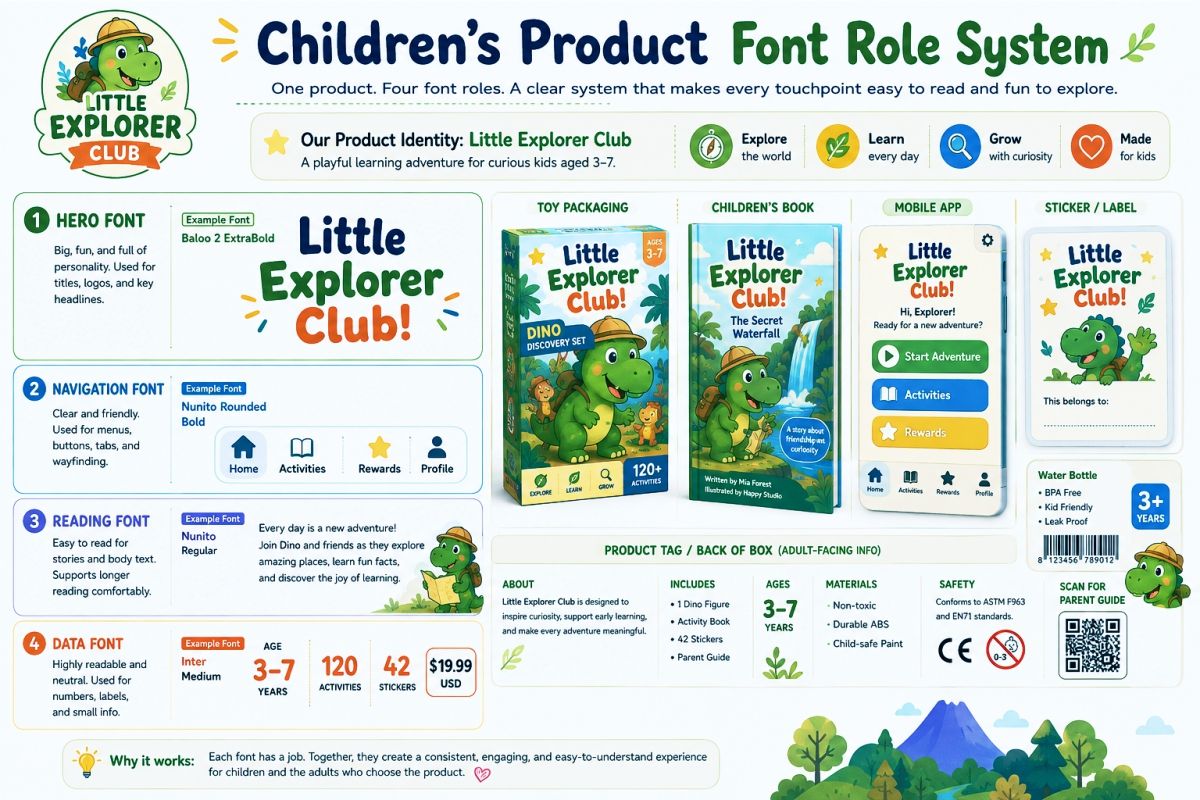
Fonts for Children’s Products: Cute, Playful, and Easy-to-Read Choices
Choosing fonts for children’s products can look like a simple creative task.
Find something rounded. Add cheerful colors. Make the letters bounce a little.
Done.
But a font can look adorable in a large presentation and become difficult to use on an actual product. The counters close. Similar letters become confusing. The product name disappears among illustrations. Instructions feel cramped. Important information becomes too small.
That is why I do not judge fonts for children’s products by cuteness alone.
I look at what the child needs to notice, what the parent needs to understand, and where the typography will appear. A toy package, storybook, learning worksheet, clothing label, and mobile app all require different levels of personality and clarity.
The best choice feels playful without making reading feel like extra work.
Children’s Typography Has Two Audiences
Many children’s products are designed for one user but purchased by another.
A child may respond to:
• A funny product name
• Large rounded letters
• Bright color
• Unexpected shapes
• A recognizable mascot
• A simple call to action
A parent, teacher, or caregiver may need to find:
• Age guidance
• Product benefits
• Materials
• Safety information
• Instructions
• Size details
• Ingredients
• Care information
These audiences should not be forced to read the same typography.
Your playful display font can speak to the child. A calmer supporting font can organize the information for the adult.
This is more useful than asking one decorative typeface to handle the entire product.
Think of the typography as a small cast of characters. One font attracts attention. Another explains. A third may help children navigate buttons, activities, chapters, or product variations.
Cute Is a Mood, Not a Font Function
A typeface can communicate sweetness, imagination, energy, or humor through its shapes.
That emotional role matters. Children’s products should not feel cold or overly formal.
However, “cute” does not tell you whether the font can display a six-word product name. It does not tell you whether the number 3 is clear. It does not tell you whether lowercase letters work in a reading activity.
Before selecting a style, define the font’s job.
Does it need to:
• Attract attention from a shelf?
• Help an early reader recognize words?
• Organize educational instructions?
• Create a memorable character name?
• Fit inside a small app button?
• Support several languages?
• Remain readable over an illustration?
Once the job is clear, the visual direction becomes easier to control.
What Makes a Font Child-Friendly?
There is no single font style that works for every child or every product.
Still, several qualities tend to make a typeface easier to use in child-focused design.
Open Letter Shapes
Look closely at letters such as a, e, c, s, g, and o.
The inner spaces should remain visible when the type becomes smaller. A font with tightly closed counters may look bold in a specimen but turn muddy on a small package or screen.
Open forms give each letter more breathing room.
Distinct Characters
Check whether similar characters are easy to separate.
Test combinations such as:
• I, l, and 1
• O and 0
• c and e
• b, d, p, and q
• rn and m
• 3, 5, 6, 8, and 9
This matters in educational products, puzzles, instructions, passwords, measurements, and numbered activities.
A playful font does not need to be perfectly uniform. It does need to avoid unnecessary ambiguity.
Sturdy Strokes
Very thin lines can disappear on textured paper, fabric, small labels, or low-resolution screens.
For most children’s products, medium or bold strokes are easier to manage. They create a clear silhouette and survive practical production conditions.
Sturdy does not have to mean heavy. The font can still feel lighthearted through curves, proportions, terminals, and spacing.
Comfortable Spacing
Some playful fonts use tight spacing to create an energetic logo.
That may work for a short brand name. It can feel uncomfortable in a sentence.
Test the default spacing before purchasing or committing to a typeface. Look for collisions, uneven gaps, and letter combinations that become difficult to recognize.
A Useful Character Set
A beautiful alphabet is not enough for a complete product system.